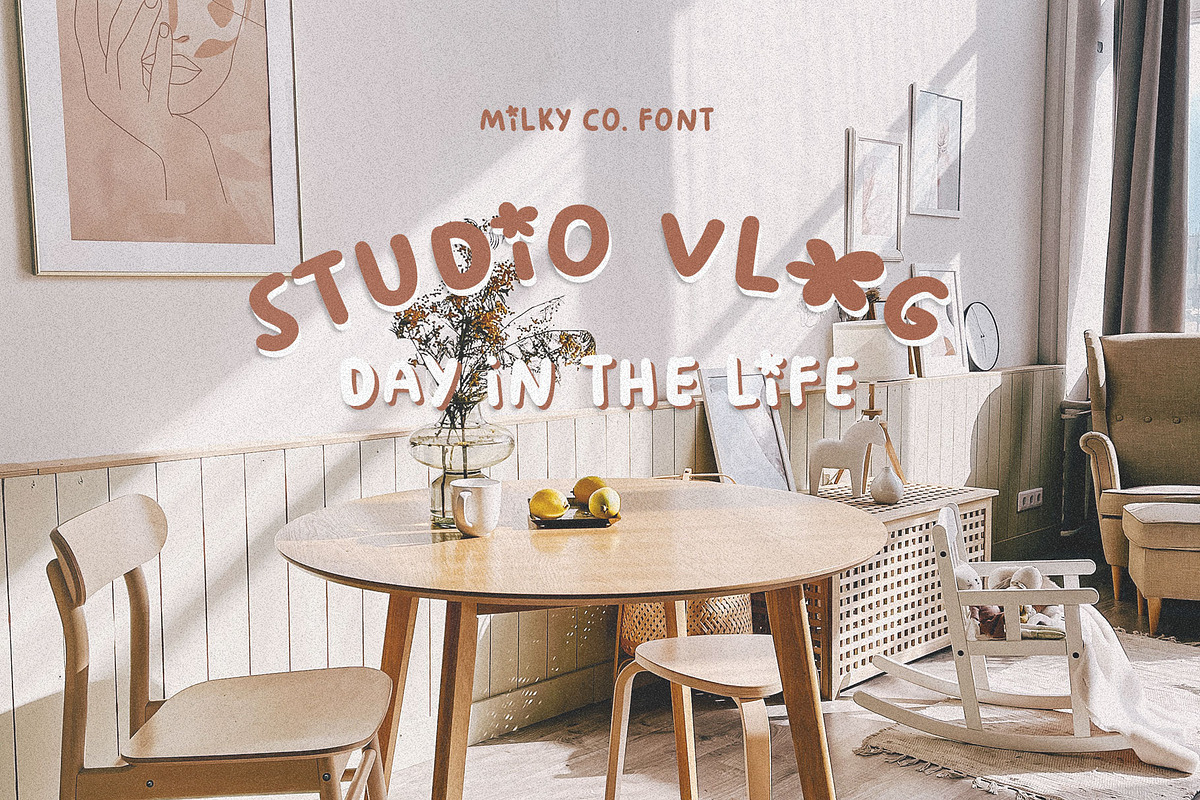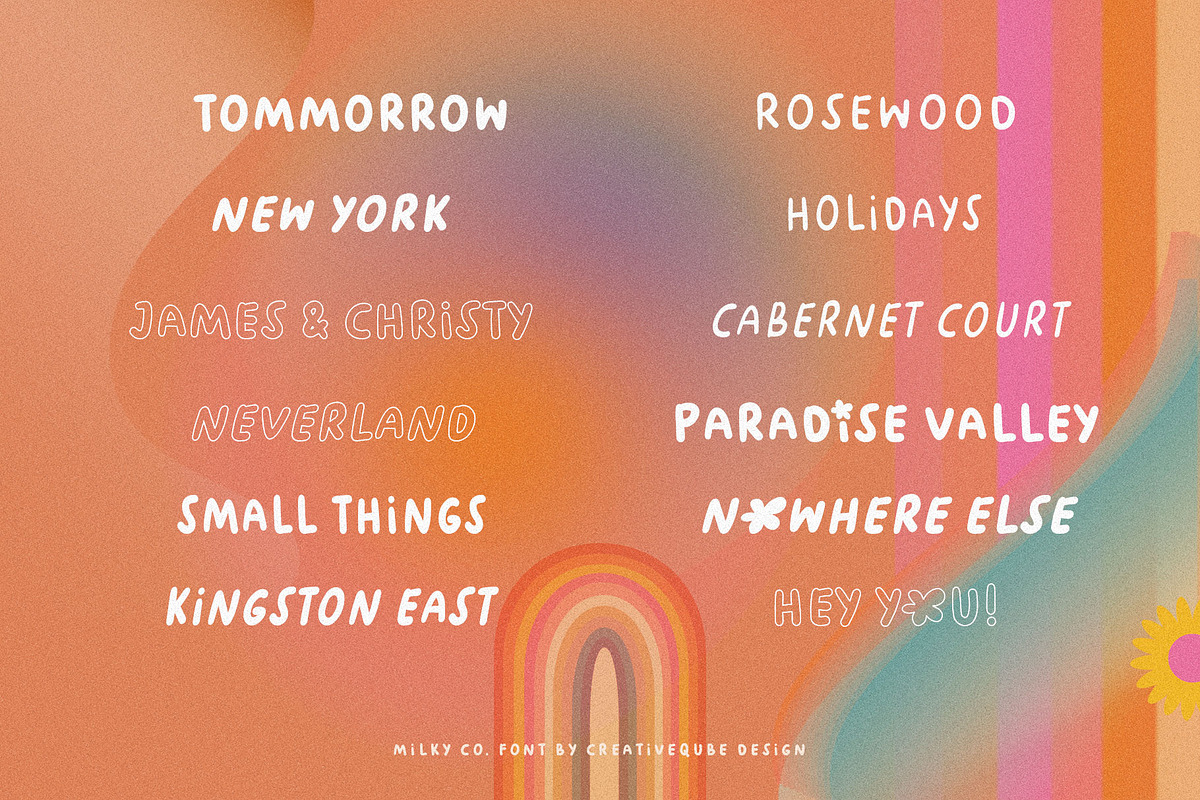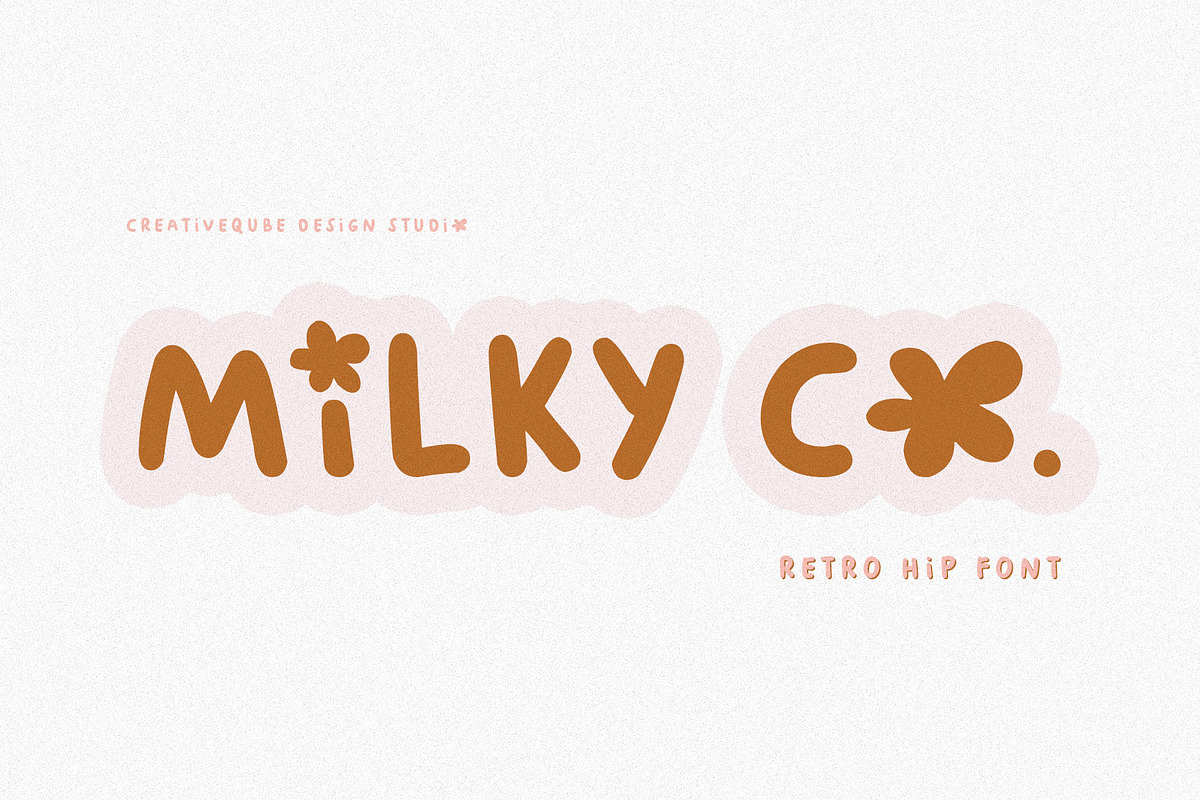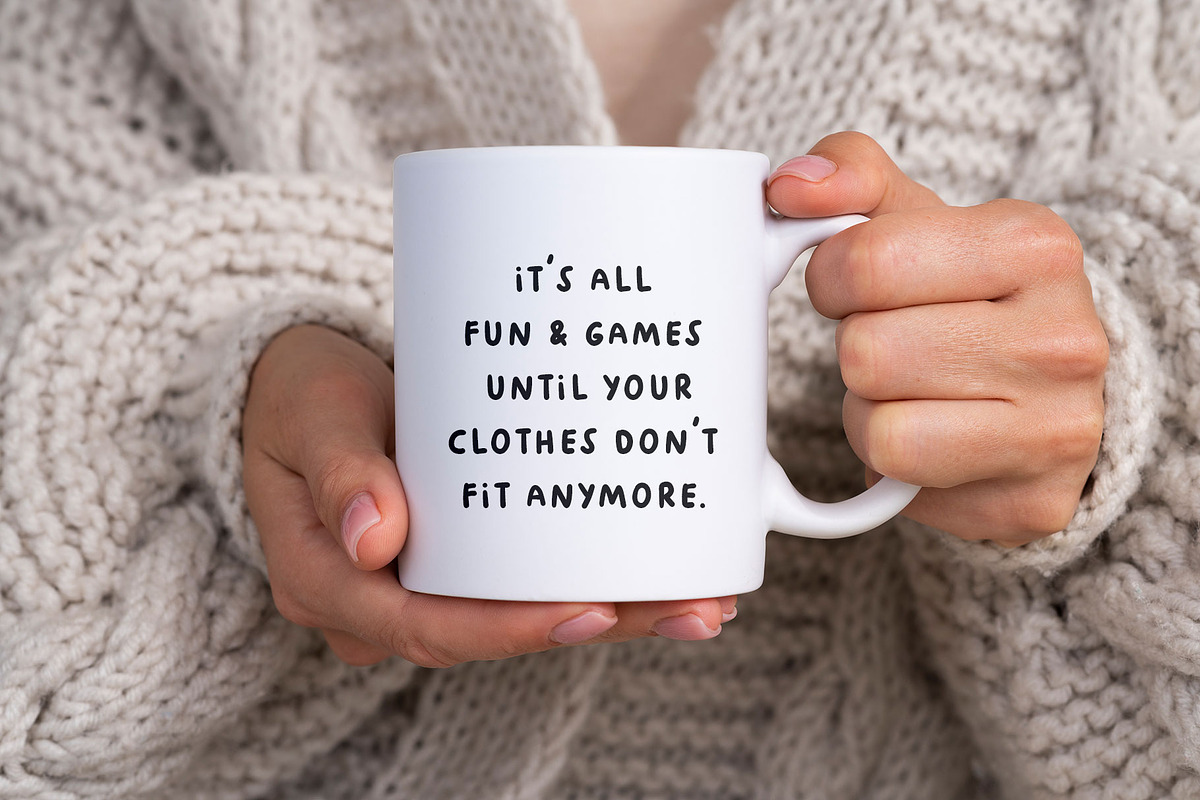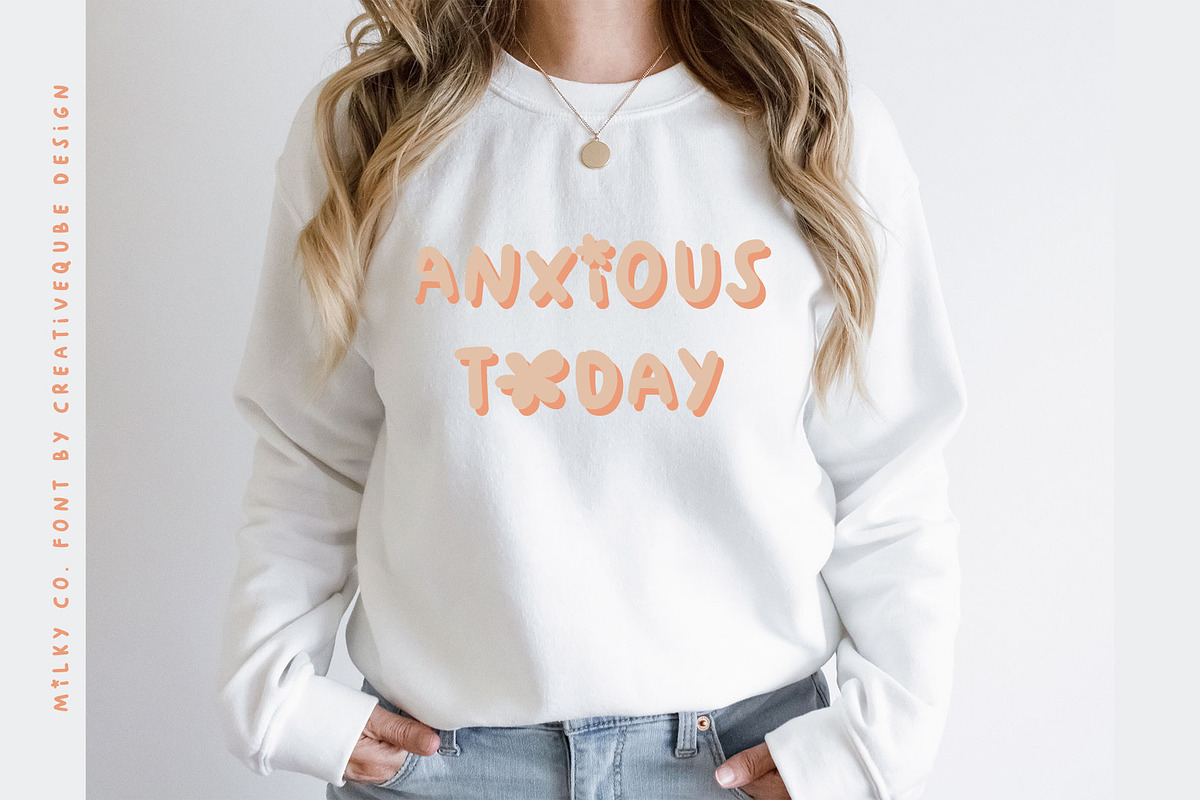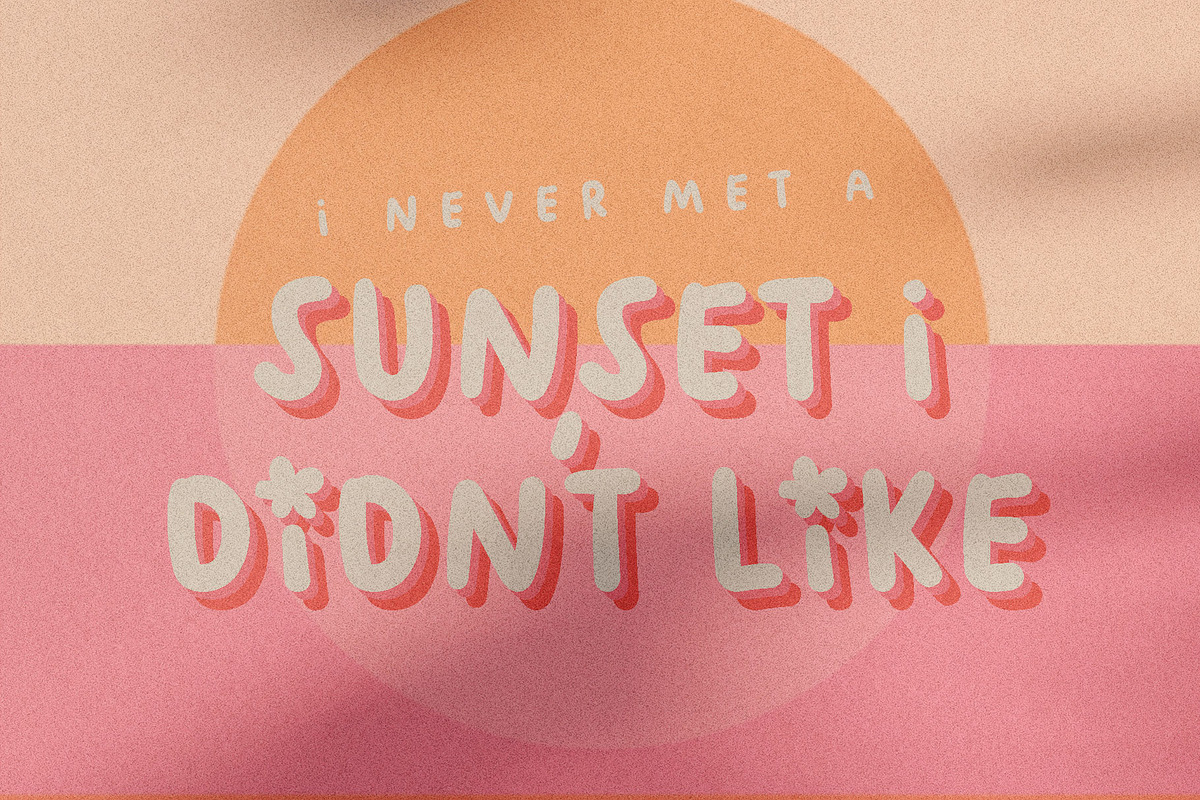
Milky Co. Retro Font
Milky Co. Font
A hand-drawn, fun retro hippy font with flower features on some alternate letters!
Milky Co. comes in 9 font styles, regular, outline, light, italic, condensed, light italic, condensed Italic, outline italic. Each font includes flower ligatures for the lowercase letters i and o.
Milky Co. is perfect for t-shirts, modern designs, procreate, stickers, logos, branding, greeting cards, cricut projects, posters, advertising, social media, prints and more!